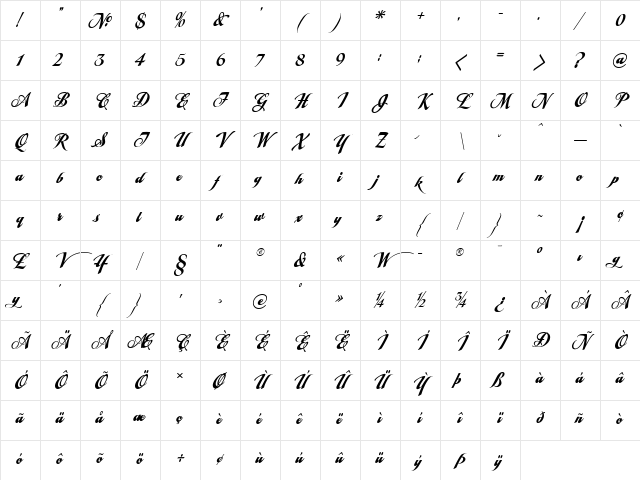
LHF Tideway Script Regular Free Font
LHF Tideway Script Regular
Complete LHF Tideway Script Regular glyph index. Displaying only characters natively supported by LHF Tideway Script Regular font.
Design Context for LHF Tideway Script
LHF Tideway Script flows with the natural rhythm of handwritten lettering, making it ideal for designs that call for warmth and personal expression.
Font Pairing: Combine LHF Tideway Script with a simple geometric sans for maximum contrast - the tension between flowing curves and clean structure is a classic typographic pairing.
Pro Tip: Use LHF Tideway Script for short runs of text - names, titles, or taglines. Extended body copy in script faces tires the eye quickly.